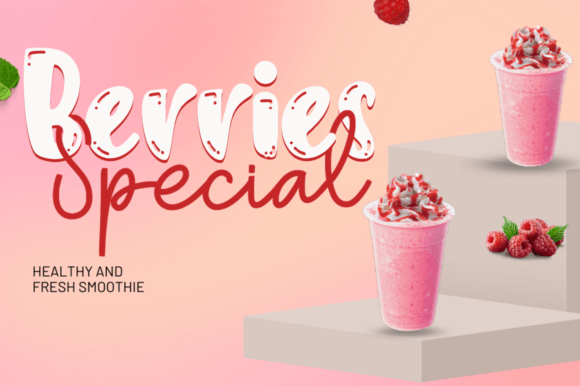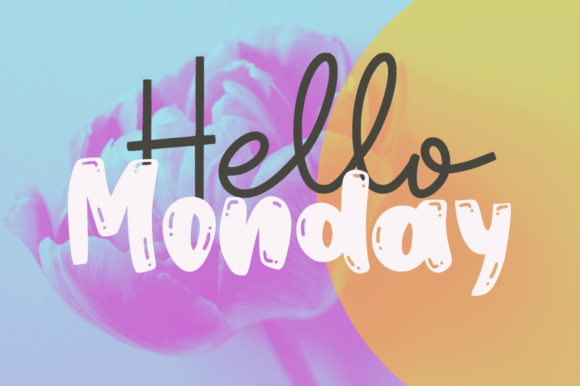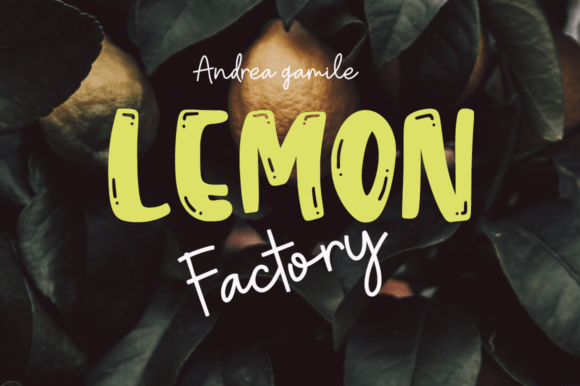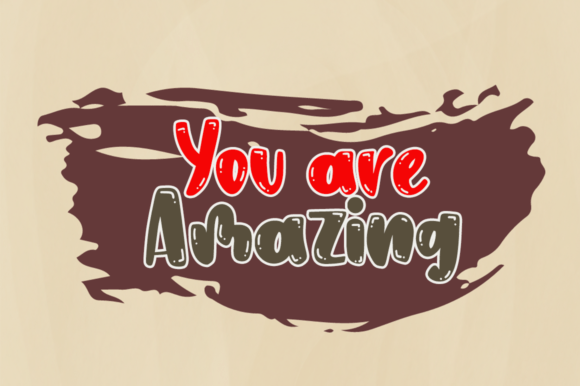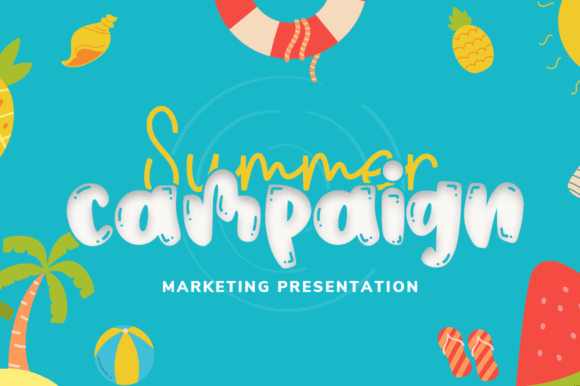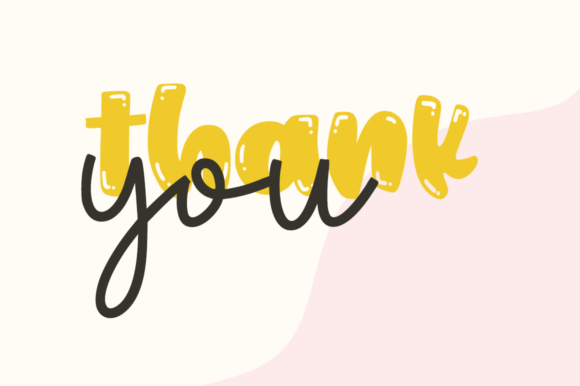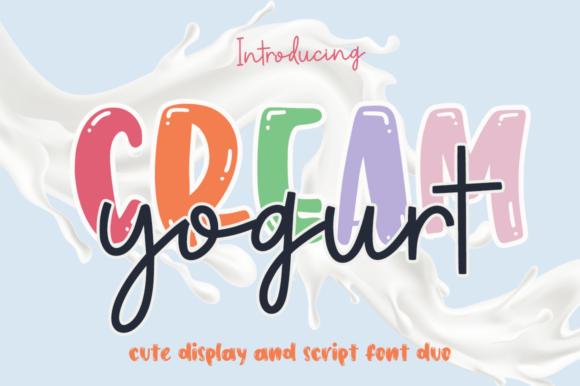
Introducing Cream Yogurt Font: The Perfect Blend of Modern Allure and Playful Charm
Are you tired of using the same old fonts in your designs? Look no further! We’re excited to introduce Cream Yogurt, a delightful font duo that’s sure to add a touch of modern allure and playful charm to your creative projects. With its effortlessly captivating aesthetic, Cream Yogurt is a fabulous addition to any designer’s toolkit.
The Versatility of Cream Yogurt Font
One of the best things about Cream Yogurt font is its versatility. Its irresistible appeal can enhance a wide range of projects, from high-spirited children’s events to absorbing school projects, festive holiday embellishments, cheerful birthday invitations, and radiant summer creations. Whether you’re a designer, crafter, or DIY enthusiast, Cream Yogurt font is sure to become your go-to choice.
Cream Yogurt font is perfect for a variety of creative projects, including:
• Children’s Events: Add a playful touch to your children’s event designs, such as party invitations, flyers, and posters.
• School Projects: Make your school projects stand out with Cream Yogurt font’s unique and captivating aesthetic.
• Holiday Embellishments: Add a festive touch to your holiday designs, such as Christmas cards, Halloween decorations, and Easter egg designs.
• Birthday Invitations: Create cheerful and eye-catching birthday invitations that will make the birthday boy or girl feel special.
• Summer Creations: Add a radiant touch to your summer designs, such as beach-themed posters, summer camp flyers, and outdoor event invitations.
Breathe Life into Your Designs
Cream Yogurt font can also breathe life into trendy T-shirt designs, nostalgic art projects, eye-catching stickers, and dynamic sublimation designs. With Cream Yogurt, you can:
• Create Trendy T-Shirt Designs: Add a modern touch to your T-shirt designs with Cream Yogurt font’s unique and captivating aesthetic.
• Revive Nostalgic Art Projects: Give your nostalgic art projects a fresh new look with Cream Yogurt font’s playful and charming style.
• Design Eye-Catching Stickers: Create eye-catching stickers that will grab attention with Cream Yogurt font’s bold and playful design.
• Craft Dynamic Sublimation Designs: Add a dynamic touch to your sublimation designs with Cream Yogurt font’s unique and captivating aesthetic.
Redefine Your Design Aesthetic
With Cream Yogurt font, it’s not just about picking a font – it’s about redefining your design aesthetic and adding that sprinkle of joy to your works. This font duo embodies the perfect blend of modern allure and playful charm, making it the missing piece of your creative journey.
Discover the World of Cream Yogurt Font Duo
Discover the world of Cream Yogurt font duo, where endearing playfulness meets ultimate sophistication. With Cream Yogurt, you can:
• Add a Touch of Whimsy: Add a touch of whimsy to your designs with Cream Yogurt font’s playful and charming style.
• Elevate Your Designs: Elevate your designs to the next level with Cream Yogurt font’s unique and captivating aesthetic.
• Make a Statement: Make a statement with Cream Yogurt font’s bold and eye-catching design.
In conclusion, Cream Yogurt font is a delightful font duo that’s sure to add a touch of modern allure and playful charm to your creative projects. With its versatility, unique aesthetic, and captivating design, Cream Yogurt font is the perfect addition to any designer’s toolkit. So why wait? Discover the world of Cream Yogurt font duo today and redefine your design aesthetic!